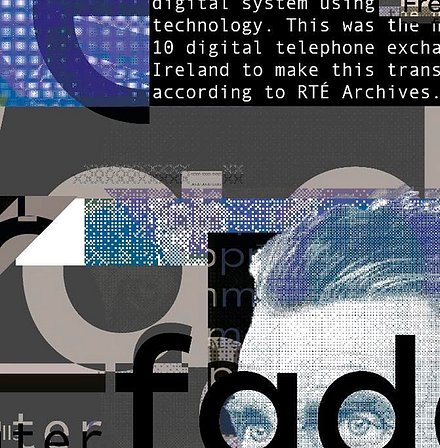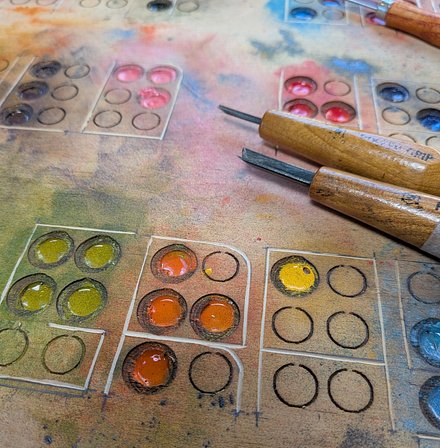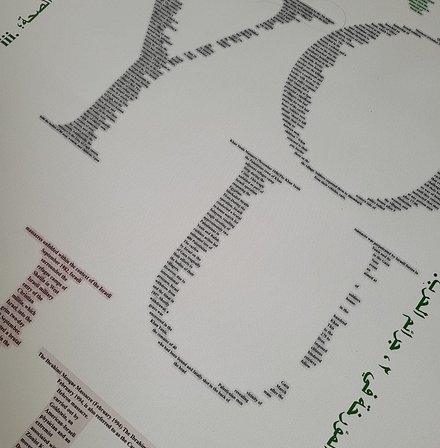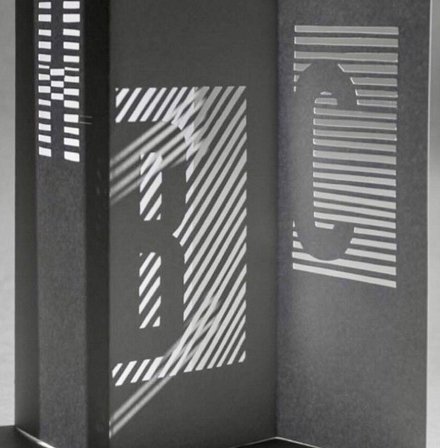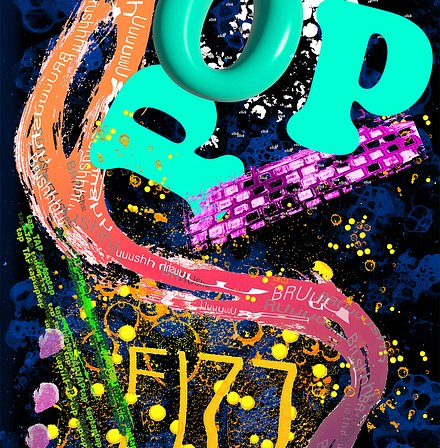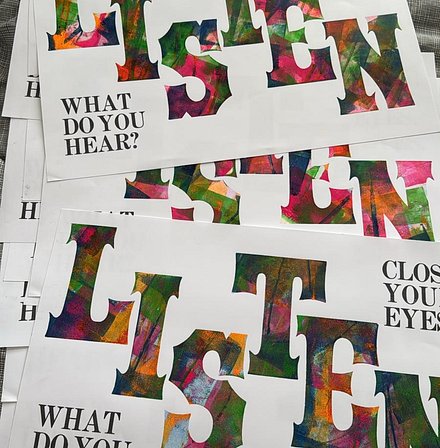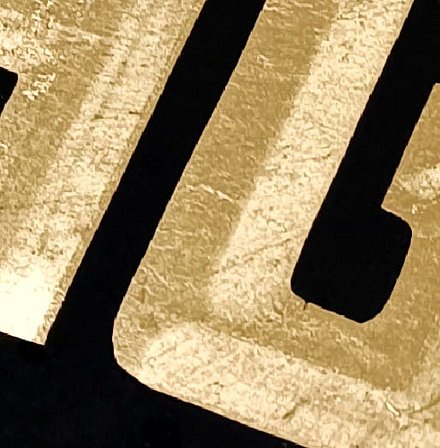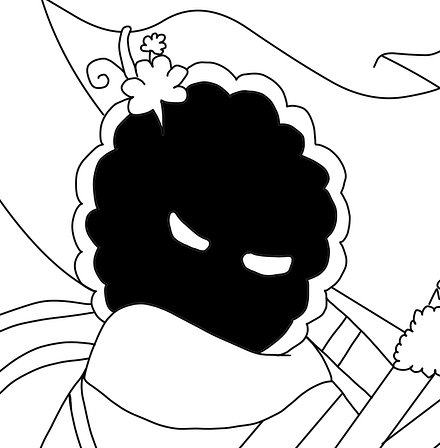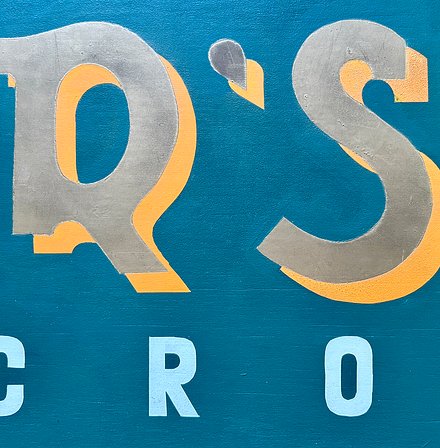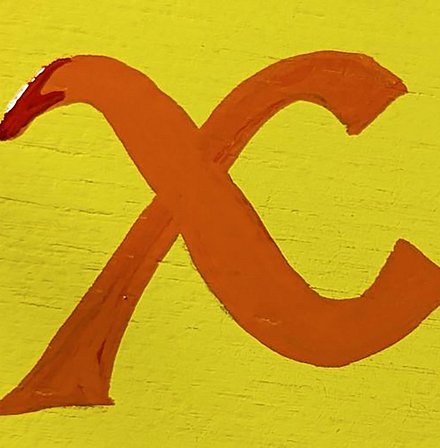
No.35 The way of the water
Location: Farrell Street
Artist: Wheathfield Prison CDETB Education students
A group of men in Wheatfield Prison came together & explored their way through the sounds & personal connection with water, they found the way of the water.
No.36 Cooper’s Park { The Croghan } This Years Legacy Piece
Location: Farrell Street
Artist: Mark Smith
This years Legacy piece for TypeTrail 2025 is a remembrance hand painted sign to remember the many family members that would have called Coopers Park {The Croghan} their Home, 8 two storey Terrace houses that once stood behind the Railway Bar for over 100 years were deemed unfit and then knocked in the late 1970’s, the local families that once lived there were relocated to various locations in the Town and if we don’t recognise that they did exist now, future generations will have no knowledge that they ever existed.
No.34 'Sligo Saxifrage'
Location: Old Garage, Bective Square
Artist: Roisin McNamee
A whisper from the summit of Benbulben. 'Saxifraaaage' growing for thousand of years through the scree. Now blooming, like every year in the clouds, clear skies and sunshine in Sligo. A message to  listen to plants that have lived millions of years before us on earth, way longer before us humans. A sign to celebrate this resilience of nature through the rocks and understand these ancient plants are also our heritage, much like typography that has been preserved through the centuries. www.roisintree.com
No.33 Silence is Golden
Location: Thai Shop, Farrell Street
Artist: Meagan McDermot
'...and I shall have some peace there, for peace comes dropping slow' - WB Yeats Giving yourself a chance to listen to silence is ever rarer in a busy world. Take a breath, listen and see what you find there.
No.32 The Listening Wall
Location: Farrell Street Artist: Year 3 students from the BA (Hons) Graphic and Digital Design programme at TUS Athlone
The Listening Wall is an immersive exhibition. Using interactive technology, each poster invites viewers to scan a QR code (bottom of each poster) and unlock a rich sensory experience - stories, sensations, and sonic textures that explore what it means to listen. The project delves into the diverse dimensions of listening, with each student focusing on a unique perspective; from noise and ASMR to storytelling and sensory overstimulation. Ranging from deeply personal narratives to socially constructed soundscapes, the works challenge us to consider how we listen, what we choose to hear, and what often goes unnoticed. Through sound and motion, these posters transform listening into a dynamic, thought-provoking experience.
No.31 LISTEN, Close your eyes, What do you hear
Location: Farrell Street
Artist: Lorna Turner
My interpretation of LISTEN is an invitation for the viewer to truly tune in to their surroundings. Too often, we are unable to separate what we hear from what we see—our senses overlapping, clouding each other. But when we close our eyes, we begin to really listen. We hear not just what is directly in front of us, but the layers of sound that surround us. Pause. Listen deeper. There is more there than we first notice. 'Close your eyes, Listen', What do you hear?’ - Do you hear a familiar voice?- Do you feel your beating heart? The prints were made at the International Printing Museums’ - Book Arts Institute in Carson, California, USA. The museum generously allowed the use of presses, antique  wood type and metal fonts and ink.
No.30 ‘Listen Loud’
Location: Farrell Street
Artist: Susan Leen
“Liberty is meaningless where the right to utter one’s thoughts and opinions has ceased to exit.” Frederick Douglass
‘Listen Loud’ is a paper cut-out piece whose text comes from a longer quote from Fredrick Douglas, an American social reformer, statesman, abolitionist, and writer. The quote is taken from a speech Douglas gave in Boston in 1860 but feels very timely in today’s political climate. The piece’s material fragility echoes this theme.
No.29 ‘UPDATE’
Location: Farrell Street
Artist: Jamie Murphy
A letterpress printed observation on the current Irish homelessness catastrophe, which is growing rapidly each year.
No.28 End of the year school photo
Location: Farrell Street
Artist: Mark Smith and Leo Mulligan
The traditional end of year school photo with the pupils of Saint Colmcilles Senior School, Kells. Éistigí the Irish for to Listen spelt out by each class on the school playground. This series of school photos spans from 2012-2025.
No.27 Listen to Nature
Location: Dunnes Premere, Cross Street
Artist: Callum O’Reilly
A piece based on the Irish Celtic Myth of Dagda, the son of Danu and a Celtic God in many areas such as the Earth. Playing his Magic Harp to impart a message onto those willing to listen.
No.26 Emphasis on the fada
Location: Kenlis Place
Artist: Leo Mulligan
Bronagh McCarthy & Louise Mullen, Studio 90. The work captures how we Studio90, collaborate as designers, approach the design process, communicating through visuals, documenting our thoughts, and, most importantly listening to each other.
This year's Kells TypeTrail 2025
We are delighted to be back with you to celebrate the launch of this year’s TypeTrail. join us at the Kells Church of Ireland on Thursday 26th June 2025, at 7pm for the offical launch, as we once again turn the streets of Kells into a canvas of type. Kells TypeTrail brings together a wide range of art forms, highlighting our unique heritage of lettering as a form of communication. Each year, one word is translated into a variety of languages, reflecting the diversity of the community in Kells, with the aim of providing a means to bring individuals and groups together. As this is what Arts, Culture and Heritage does, this year’s word is ‘Listen'.